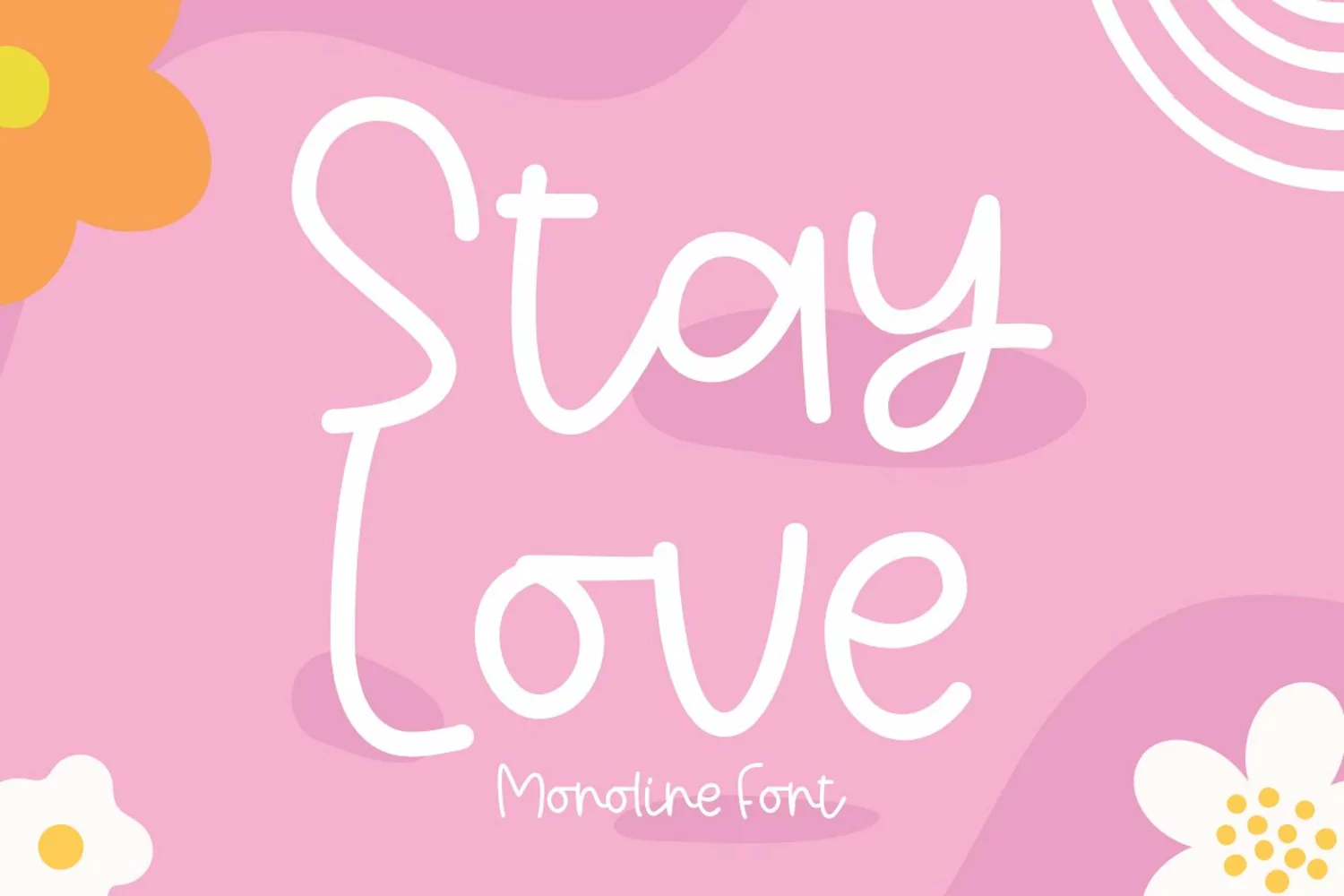
Introducing " Stay Love "
Stay Love - Monoline Handwritten Font
You Can Mix And Match for Your Awesome Project
This fonts is ideal for crafting, branding and decorate your any project. This fonts are perfect for wedding invitation or your blog. Also with their help, you can create a logo or beautiful frame for your home. Or just use for your business, book covers, stationery, marketing, magazines and more.